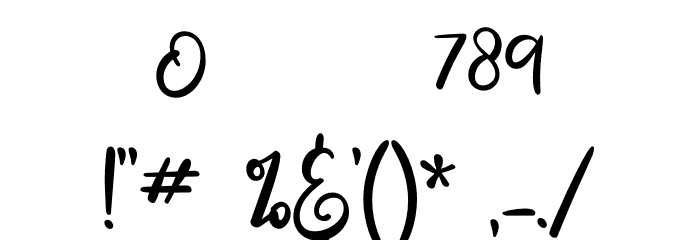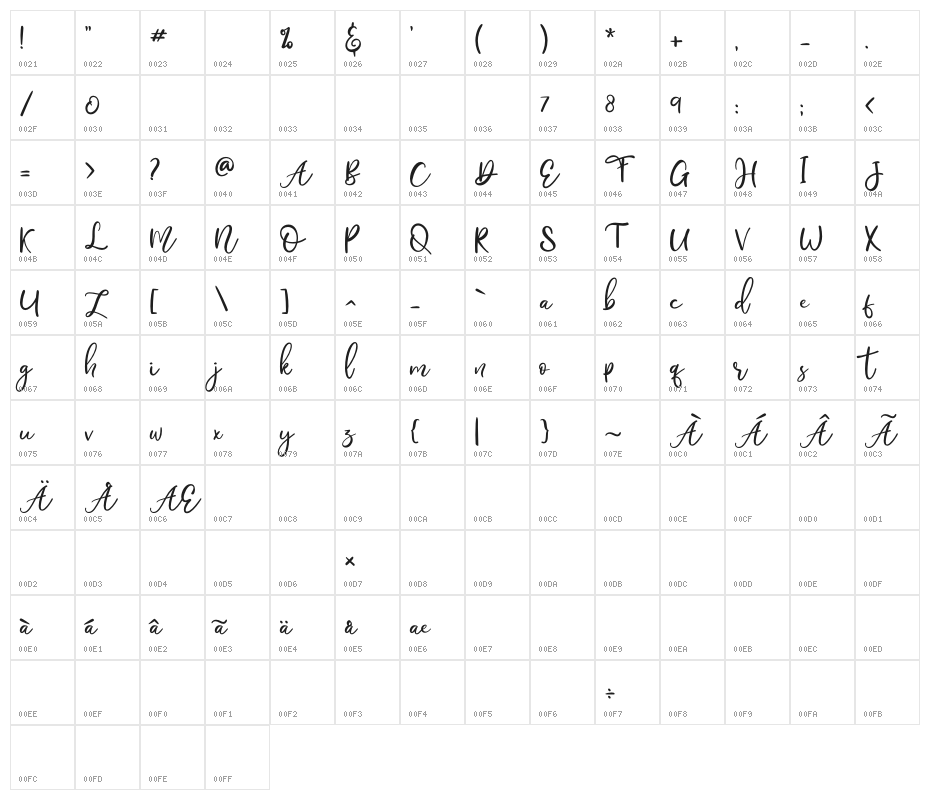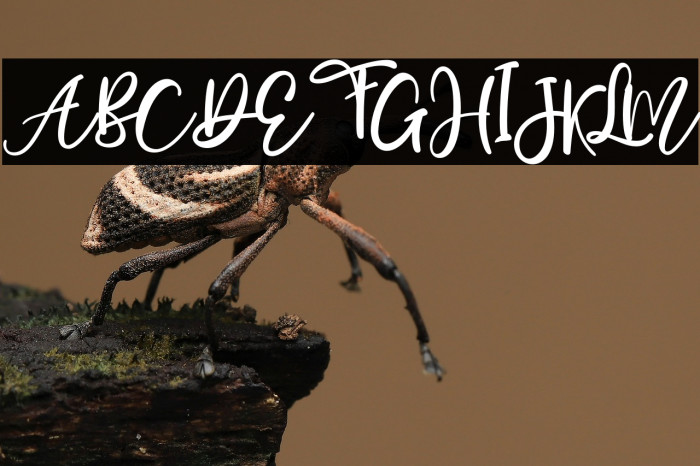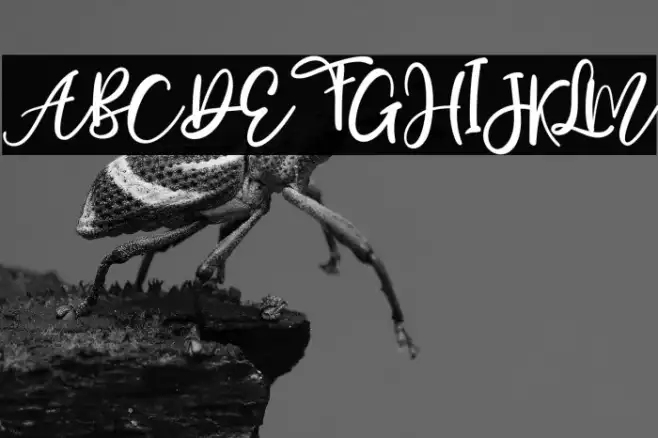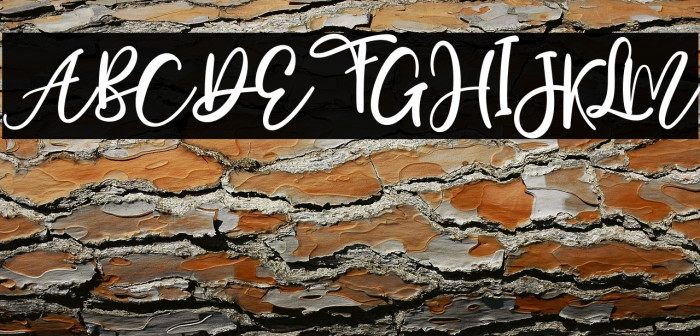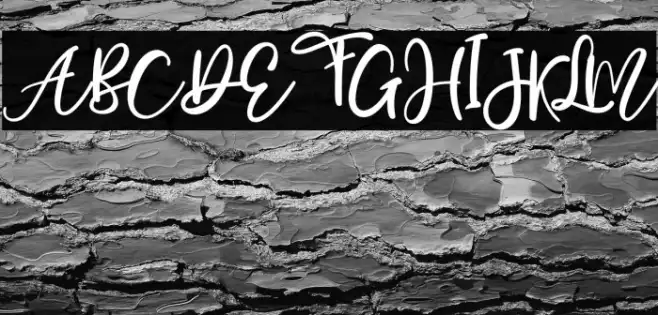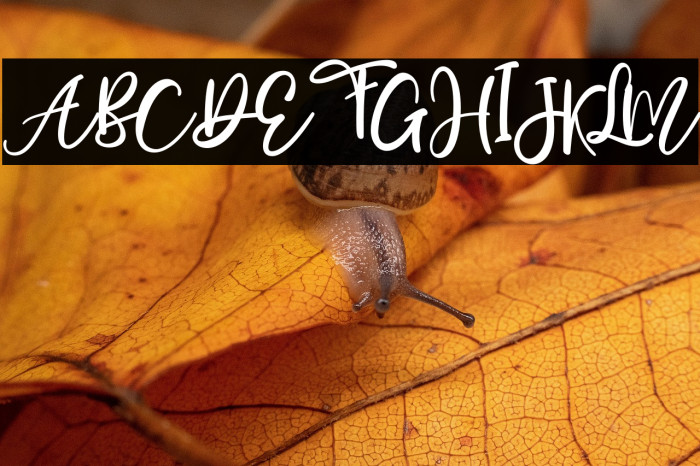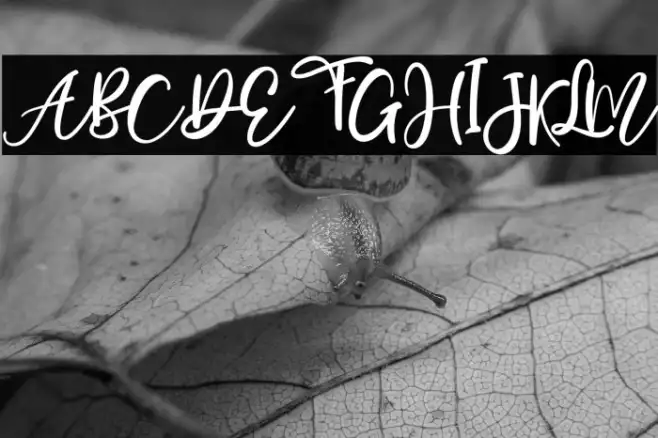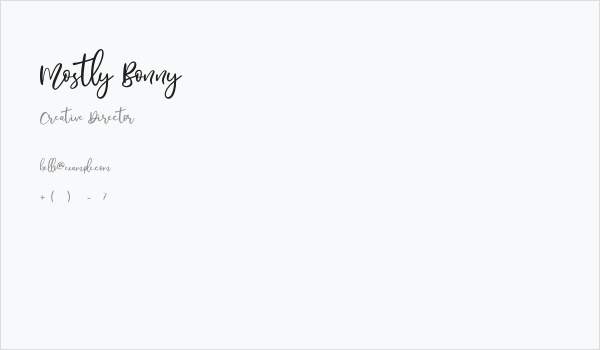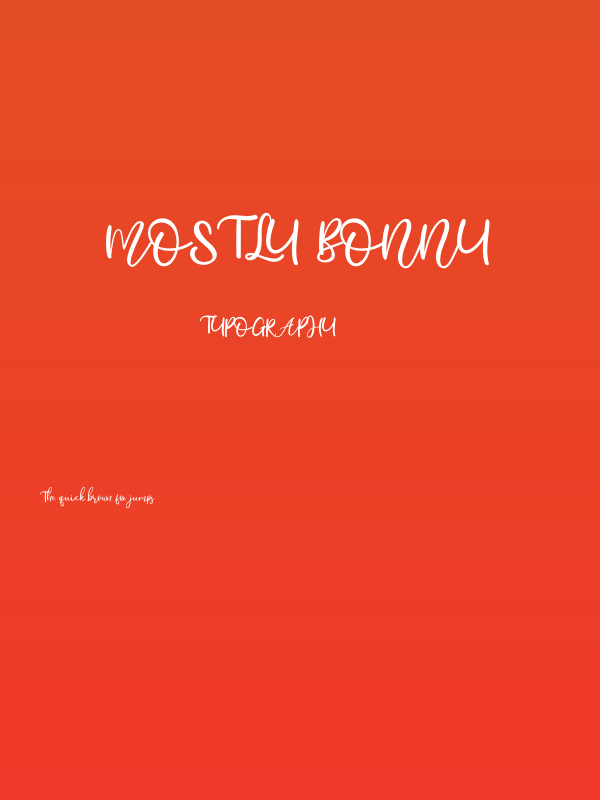
Mostly Bonny Font
Mostly Bonny Description
This font features a lively and dynamic script style, characterized by its fluid, cursive strokes and playful loops. The uppercase letters are bold and expressive, with a slight slant that adds to their energetic appearance. The lowercase letters maintain a consistent flow, with some characters extending below the baseline, enhancing the font's whimsical nature. The numerals are distinct and easy to read, while the special characters complement the overall style with their unique flair. This font's design is both elegant and informal, making it suitable for a variety of creative applications.
| Use Case | Logos, Invitations, Social Media |
| Proposed Projects | Ideal for wedding invitations, greeting cards, branding projects, and social media graphics. |